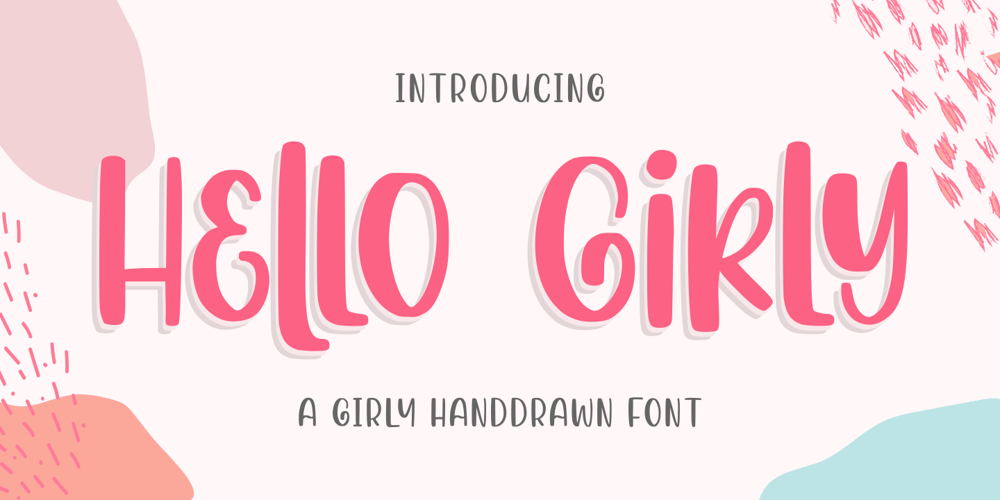
Hello Girly Font Family was designed by Good Java and published by Good Java Studio. Hello Girly contains 1 styles and family package options. Hello Girly is the perfect font for all your fun designs. The main font file is equipped with ordinary characters (A-Z, a-z, 0-9, ligature), as well as more than 300+ glyphs to support most Latin-based languages.So you can be sure they will work well together with other fonts! It is suitable for you to use in making t-shirt designs, quotes, labels, packaging, logo type, or long writing. Because we have compiled kerning and matrices that are tailored to your needs.